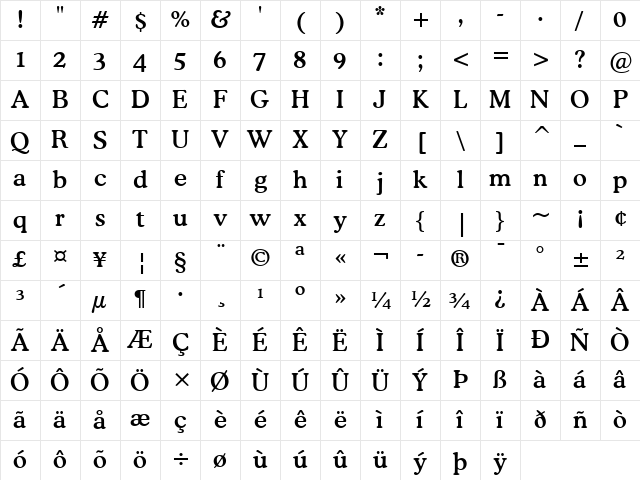
CooperMdBTW05- Regular
Foundry: ParaType, Inc.
Designer: Victoria Grigorenko, Manvel Shmavonyan
Design Context for CooperMdBTW05-
CooperMdBTW05- is a composed and adaptable typeface that performs quietly and consistently across a wide range of design contexts.